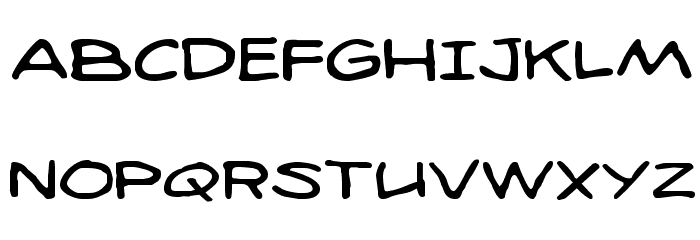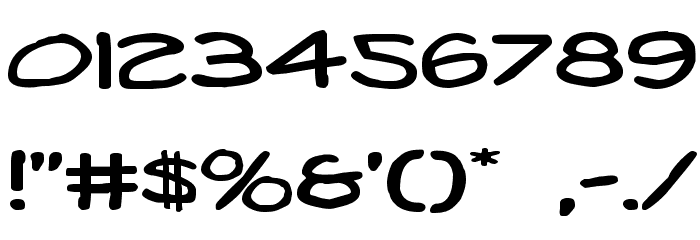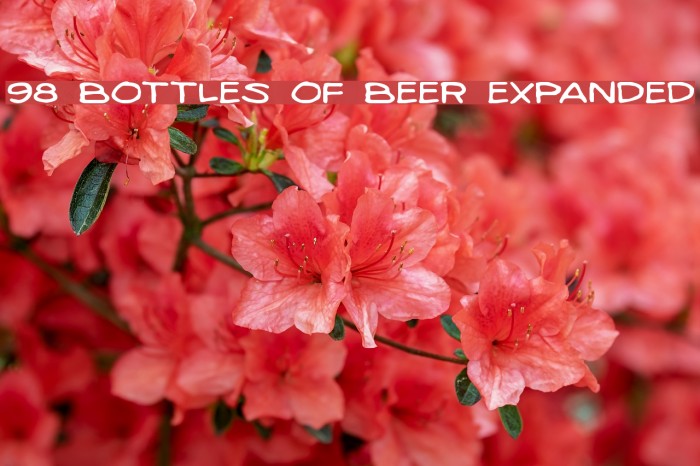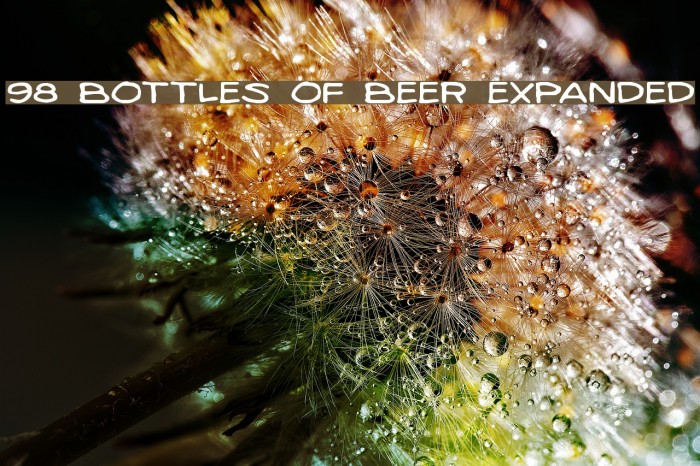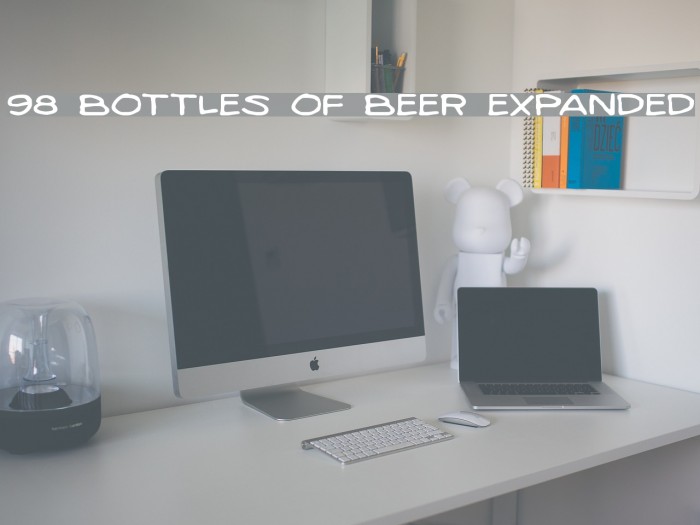
98 Bottles of Beer Expanded Font
This font features a playful and casual handwritten style, characterized by its rounded and slightly irregular letterforms. The strokes are bold and consistent, giving it a friendly and approachable appearance. The characters have a slight slant, adding to the informal and dynamic feel of the typeface. The overall design is reminiscent of hand-drawn lettering, making it suitable for projects that require a personal touch. The numerals and special characters maintain the same playful aesthetic, ensuring consistency across all text elements.
A playful, handwritten-style font with bold, rounded strokes.
- Proposed Projects: Ideal for children's books, casual invitations, greeting cards, and playful branding projects.
- Overall Style: Casual
- Use Case: Headlines, Logos, Informal Text